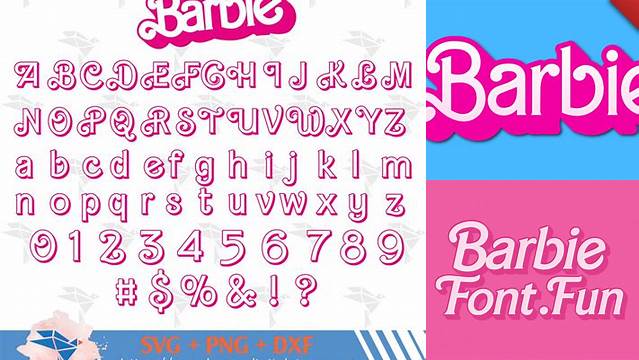
Barbie Font Generator SVG: Easy Design Guide
Hey everyone! If you're a fan of the iconic Barbie aesthetic and want to add that touch of glamour to your projects, then you're in the right place. In this article, we'll dive deep into the world of the Barbie Font Generator SVG, exploring how you can create stunning designs with ease. We'll cover everything from what an SVG font is, how to use a Barbie font generator, and where you can find free and paid options. So, grab your favorite drink, and let's get started! We're going to make your designs POP!
What is a Barbie Font Generator SVG?
Let's start with the basics, shall we? A Barbie Font Generator SVG is a tool that allows you to create text in the style of the Barbie logo or other Barbie-inspired fonts, and then export it as an SVG (Scalable Vector Graphics) file. But, what exactly is an SVG file, you ask? Well, an SVG file is a vector-based graphic format. Unlike raster images (like JPEGs or PNGs) that are made up of pixels, SVGs are made up of mathematical equations that define shapes, lines, and curves. This means that SVG files can be scaled up or down without losing any quality. This is super important for creating designs that will look great whether they're on a tiny phone screen or a giant banner. The Barbie font generator takes the concept a step further by specializing in fonts that capture the essence of Barbie's world – think bubbly, playful, and effortlessly chic. Think of all the cool projects you could make, like personalized invitations, t-shirts, posters, and social media graphics. The possibilities are truly endless, you guys! Plus, the advantage of using an SVG file is that you can easily edit the text in vector graphic software like Adobe Illustrator, Inkscape, or CorelDRAW. This gives you a ton of flexibility in customizing your designs to perfectly match your vision. You can change colors, sizes, and even tweak individual letter shapes to achieve the desired look. These generators are usually user-friendly, even if you're not a design pro. They often have simple interfaces where you can type in your text, choose a Barbie-inspired font, and customize it to your liking. Some generators even offer extra features like the ability to add shadows, outlines, or other effects to your text. This is a great way to add depth and visual interest to your designs. I mean, how cool is that? So, whether you're a seasoned designer or just starting out, a Barbie Font Generator SVG can be a valuable tool in your creative arsenal. You can really boost your projects in seconds!
How to Use a Barbie Font Generator: A Step-by-Step Guide
Alright, let's get down to the nitty-gritty of how to actually use a Barbie Font Generator SVG. The process is generally quite straightforward, but here's a step-by-step guide to help you along the way:
- Enter Your Text: Once you've selected your generator, the next step is to enter the text you want to create. Usually, there's a text input field where you simply type in your message, name, or any other text you want to be rendered in a Barbie-style font. Some generators may also offer the option to import text from a file. If you are planning to design several products, it's useful to create a list of texts that you can reuse, just copy and paste to save time. Make sure the generator has the right characters, such as letters, numbers, and symbols you need for your project. After that, you can easily copy the text.
- Choose Your Font: Here comes the fun part! Browse the available font options and choose the one that best captures the Barbie vibe you're going for. Generators usually offer a selection of Barbie-inspired fonts, each with its own unique style. Some fonts may be more bubbly and playful, while others might lean towards a more elegant or sophisticated look. Play around with different fonts to see which one fits your vision best. You might even want to experiment with a few different fonts before settling on the final design. Consider the overall aesthetic of your project when making your font selection. If you are designing a logo, choose a font that reflects your brand. If you are designing a party invitation, you can consider a more playful and fun font. The style and tone of your text are key for your project. If you're unsure, preview your text in a few different fonts to see how it looks.
- Customize Your Design: Most generators offer a range of customization options, such as changing the color, size, and style of your text. You might be able to add shadows, outlines, or other effects to make your text pop. Take advantage of these features to personalize your design and make it truly unique. Think about the colors that best represent the Barbie theme – pink, of course, but also other pastels and bright, vibrant shades. Experiment with different sizes and styles to see what looks best for your project.